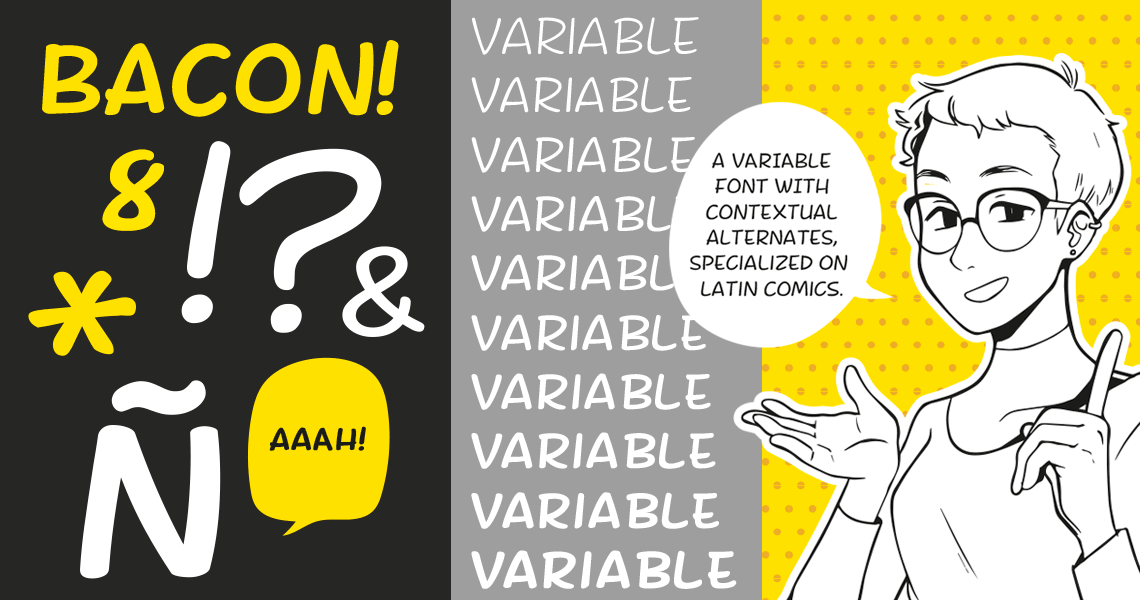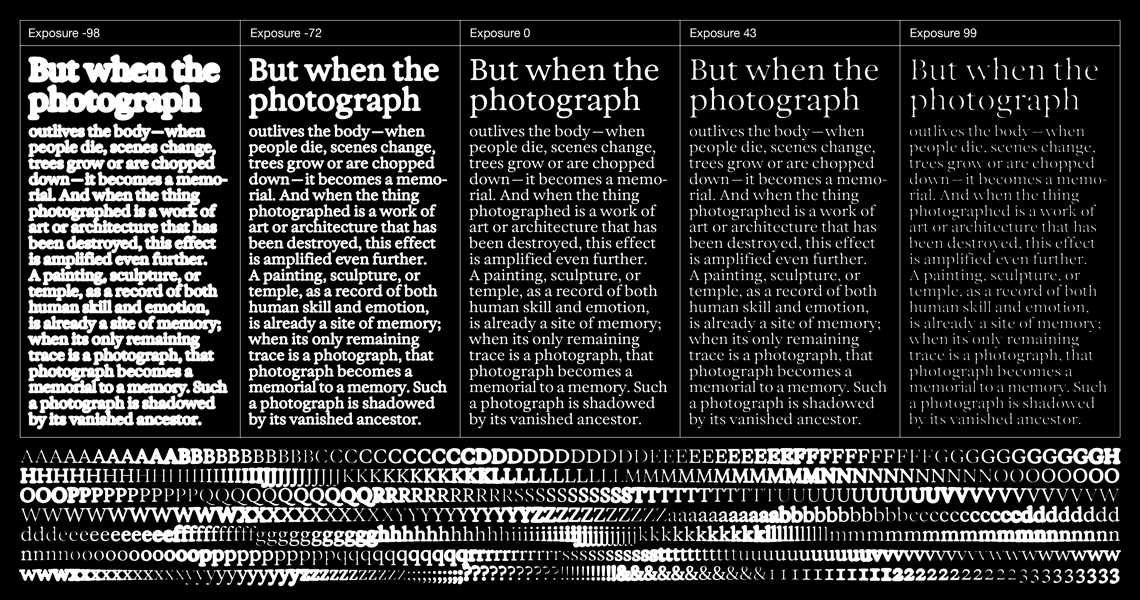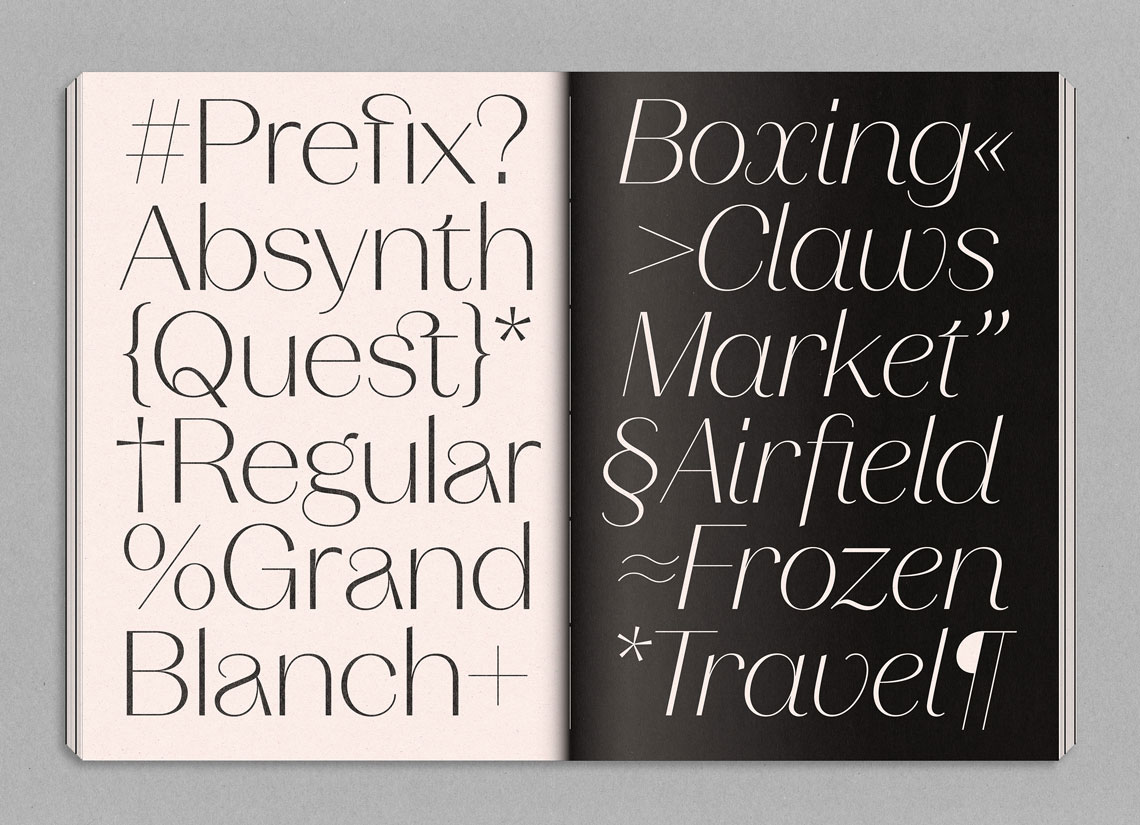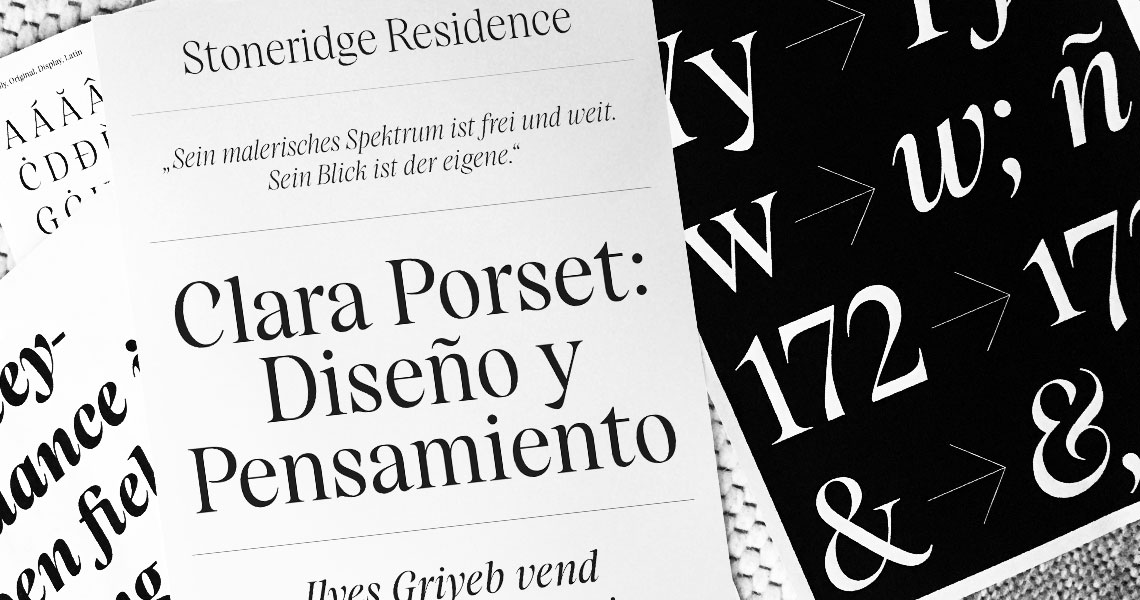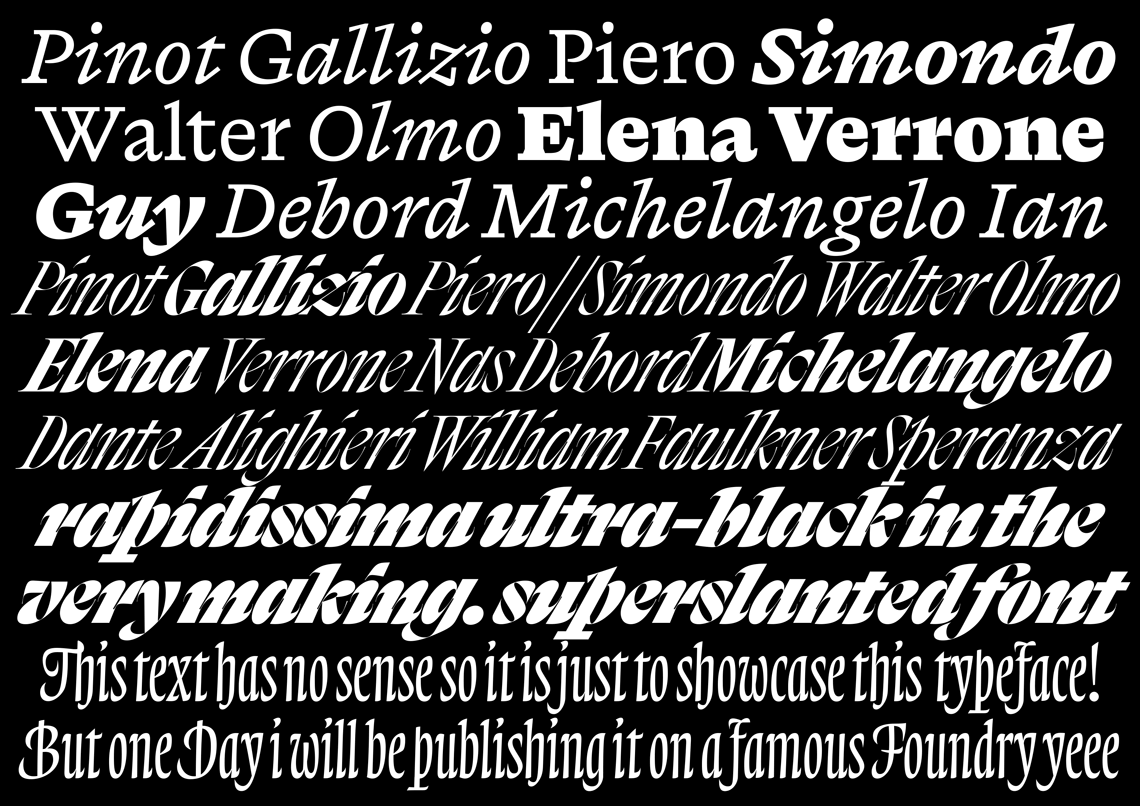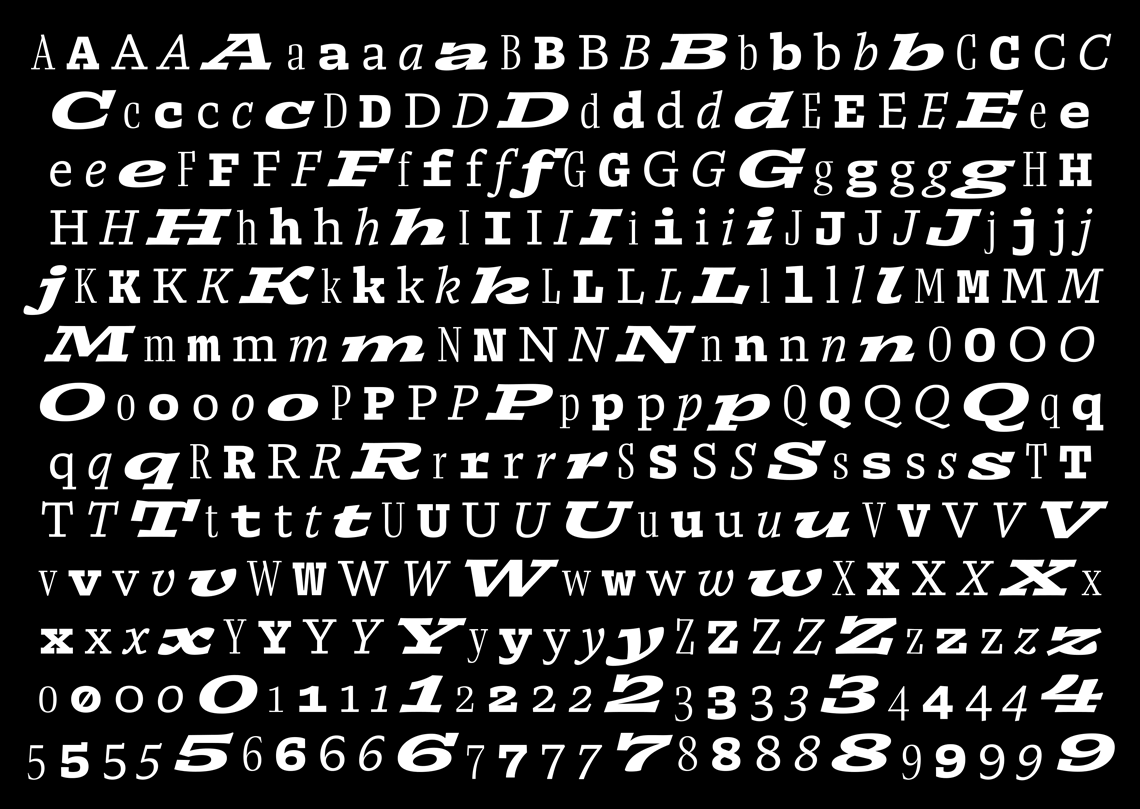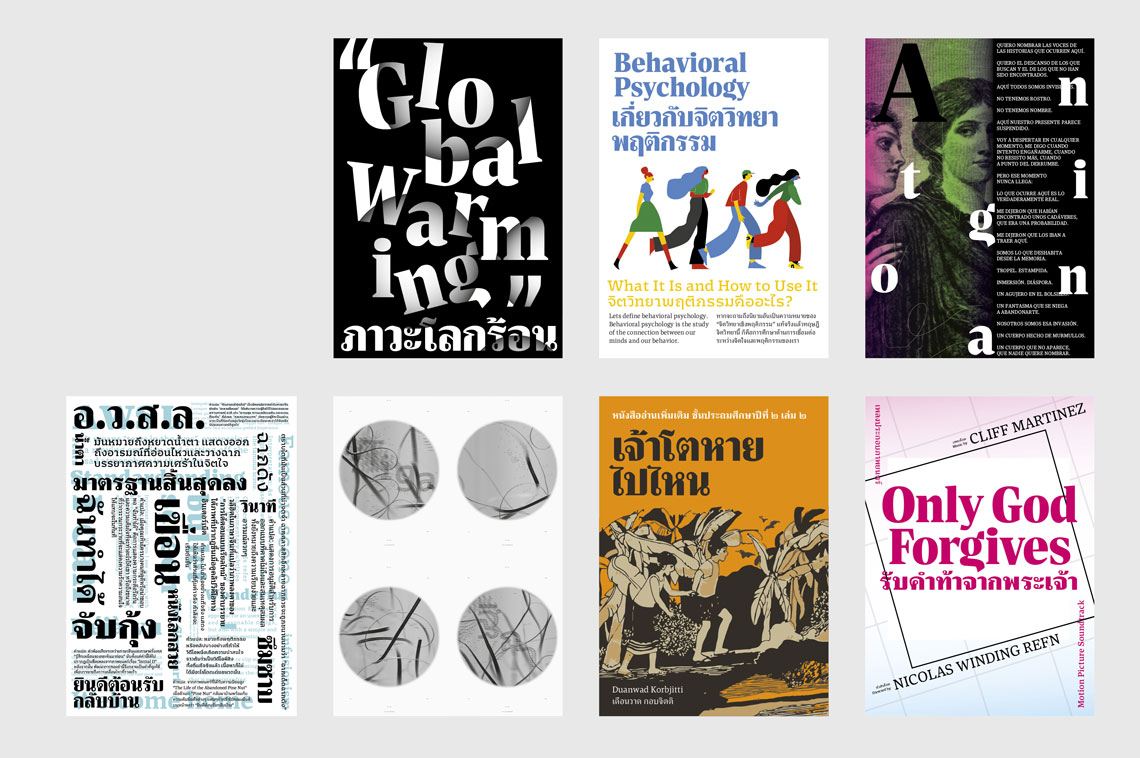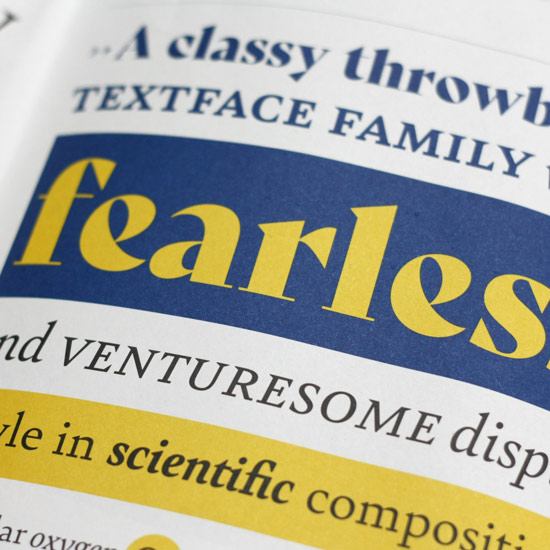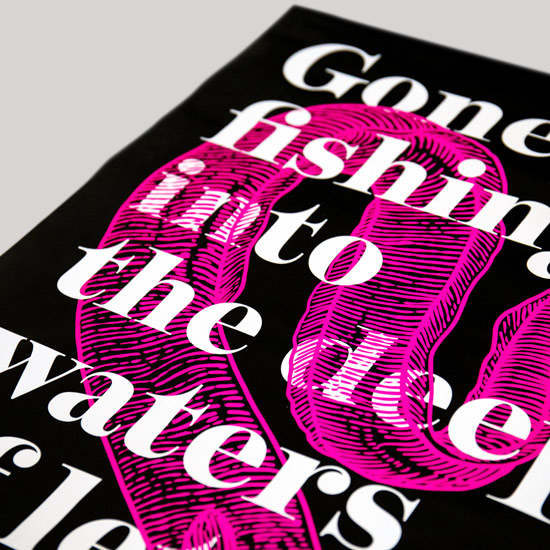
2020 Gerard Unger Scholarship Results
We are happy to announce the winner of the Gerard Unger Scholarship 2020: the Rezak typeface by Anya Danilova, recent graduate from KABK, The Netherlands.
Rezak typeface by Anya Danilova, recent graduate from KABK, The Netherlands, recipient of the sixth Gerard Unger Scholarship.
Rezak is a type family inspired by cutting letters out of a solid material. With only a few cuts, the shapes remain dark and simple. With more cuts, the shapes become lighter and more defined. The range of Rezak’s core weights highlight this relationship between cuts and lightness. Rezak also features an italic for the regular style and an incised style for use in large titles. As the TypeTogether team, we see another benefit: this family is not sequestered within one specific genre or script, so we can imagine how it could be interpreted for other scripts.
José Scaglione and Veronika Burian, the founders of TypeTogether, commented about the 2020 edition of the scholarship: “This year, the scholarship recipient is Russian type designer Anya Danilova with her Rezak family, a Latin and Cyrillic type family. Her work is bold, energetic, and well informed. And while it is in every sense a novel design that will make great company to previous Gerard Unger Scholarship winners, it also displays a wink to the work of some type masters like Preissig, Menhart, or Dwiggins. This push toward creativity and innovation with an eye on typography’s rich history is an important part of our foundry’s efforts.”
As the sixth recipient, Anya Danilova has joined a unique club of previous scholarship recipients: Roxane Gataud (Bely), Juan Bruce (Noort), Quentin Schmerber (Temeraire), Bogidar Mascareñas (Laima), and Florian Fecher’s upcoming Lektorat family (previously Redaktion). Each of the Gerard Unger Scholarship published typefaces have won awards, including the coveted TDC Certificate of Excellence award for three of them.
This year we received almost 100 submissions from all over the world — from fourty-five schools and showcasing eighteen different scripts. The TypeTogether team has selected the main scholarship winner and awarded merits to eight other outstanding typeface projects: Bacon by Adriana De La Torre Cervantes, Exposure by Federico Parra Barrios, Figurat by Abel Martins, Leonore by Helene Krieger, Quinta by Carina M. Huynh, Rapida by Michelangelo Nigra, Diafone by Renan Rosatti, and Tiga by Sirin Gunkloy.
The annual Gerard Unger Scholarship helps promising typeface design students develop their careers. TypeTogether’s aim is to enable exceptional projects started during a course of study to be finalised and published commercially as soon as possible after the end of the course.
The original idea of starting a scholarship six years ago came about after Veronika Burian and José Scaglione visited the MATD students at the University of Reading. They saw projects that were truly creative, or that were at least quite promising, but students often had to look for a job immediately after finishing their post-graduate course. As a result, many of those worthwhile projects were sadly left aside and never published. So they originally created the mentorship program to help a selected student bring their project to a publishable state.
The core of the program is in the mentorship provided to the selected student, giving them a look behind the scenes of a successful foundry and offering collective experience and expertise. José Scaglione explains: “We look for fresh and inspiring ideas, a creative drive, and a sense of experimentation that is mostly found in students who still have a virgin eye for type design without having to consider commercial viability. At the same time, we look carefully at the concept of the submitted typefaces and how well it might fit into our overall retail library so as to avoid internal competition. The type family’s level of completion and its potential, as well as the quality of shapes and attention to detail, are also essential to our final decision.”
José and Veronika have given each merit winner an exclusive feedback session, a merit certificate, and a social media badge. Join us in congratulating them on their achievements!
Bacon is a family for cartoons and comics, inspired by classic Mexican comics and packed into a variable font format. Designed by Adriana De La Torre Cervantes while a student at Centro University in Mexico. Tutor: Armando Pineda.
The Exposure family explores the boundaries of legibility by playing with over– and underexposed shapes. Designed by Federico Parra Barrios, Atelier National de Recherche Typographique (ANRT, France). Tutor: Thomas Huot-Marchand.
Figurat is an exploration of shapes that result from the movement and gesture of the hand, and the control of harmony and the rhythm. Designed by Abel Martins, graduation project at FBAUP (Faculdade de Belas Artes da Universidade do Porto) for the Master in Graphic Design and Editorial Projects. Tutor: Pedro Amado.
Leonore is a reinterpretation of classical forms that brings calligraphic inspiration into a slab family for long reading. Designed by Helene Krieger during her MA Type Design and Typography, UMPRUM Academy of Arts, Architecture & Design in Prague. Tutors: Tomáš Brousil and Radek Sidun.
Quinta, an elegant display family with inspiration from transitional and oldstyle serifs to calligraphy. Designed by Carina M. Huynh during the course Font Design 1 & 2 at ArtCenter College of Design, Pasadena, California. Tutor: Greg Lindy.
Rapida is an energetic type family that explores historical conventions and reinvents them. Designed by Michelangelo Nigra as the final project during the Master TypeMedia at the Royal Academy of Art, The Hague. Tutors: Erik van Blokland and Peter Biľak.
Diafone explores editorial type families with multiple voices that offer an organised and hierarchical typographic palette. Designed by Renan Rosatti for the graduation project during the Master TypeMedia at the Royal Academy of Art, The Hague. Tutor: Erik van Blokland.
Tiga is a Thai and Latin type family that explores optical sizes for newspaper design. It includes serif and sans for the Latin, as well as looped and loopless for Thai. Designed by Sirin Gunkloy at the École Supérieure d’Art et de Design d’Amiens, EsadType 2018–20. Tutors: Frederik Berlaen, Mathieu Réguer, Patrick Doan, Sébastien Molighem and Jean-Baptiste Leveé.